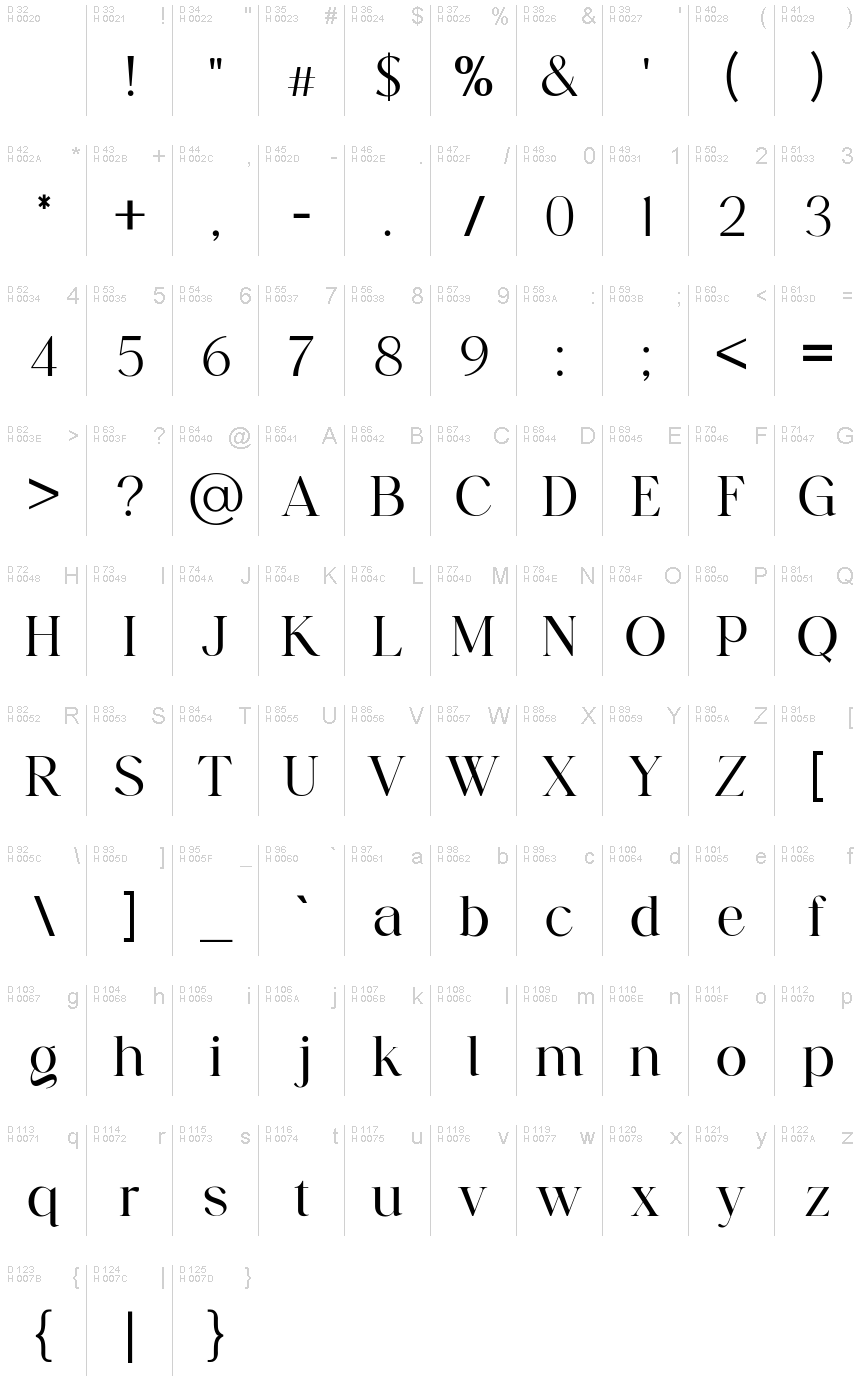
Butcherly Regular
The Butcherly serif font exudes a refined elegance with its sharp, angular serifs and robust, commanding presence. This captivating typeface commands attention with its strong, distinctive strokes, evoking a sense of timeless sophistication. The balanced proportions and harmonious letter forms lend the design an air of traditional craftsmanship, while the slight variations in stroke thickness add an intriguing depth and texture.
Butcherly's versatility makes it an exceptional choice for a wide range of design applications. Its assertive, yet refined aesthetic lends itself perfectly to branding and identity projects, where it can convey a sense of authority and prestige. Similarly, the font's striking visual impact makes it an ideal selection for headlines, editorial content, and advertising materials, where it can effectively draw the viewer's eye and leave a lasting impression.